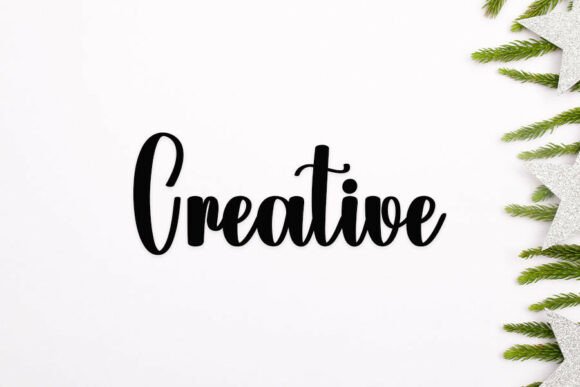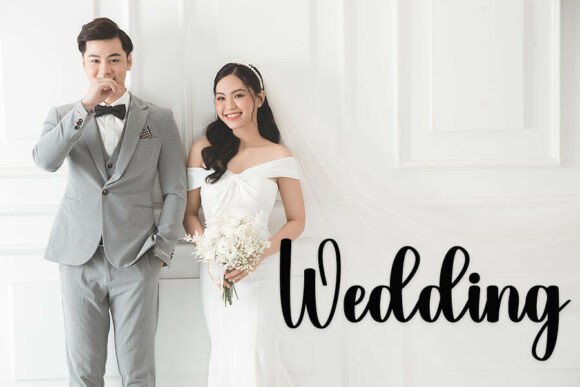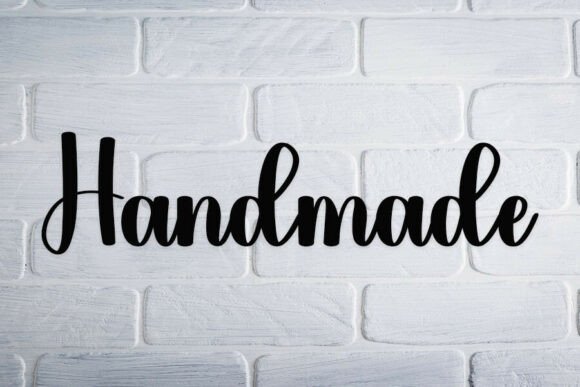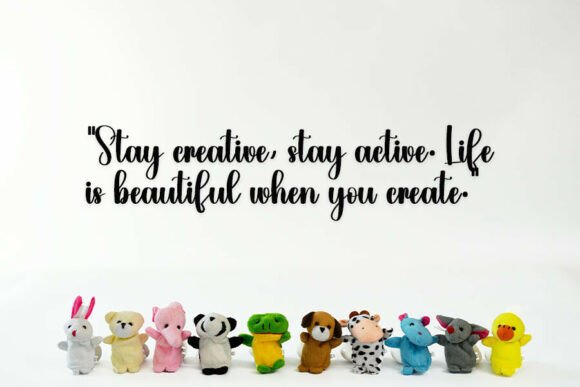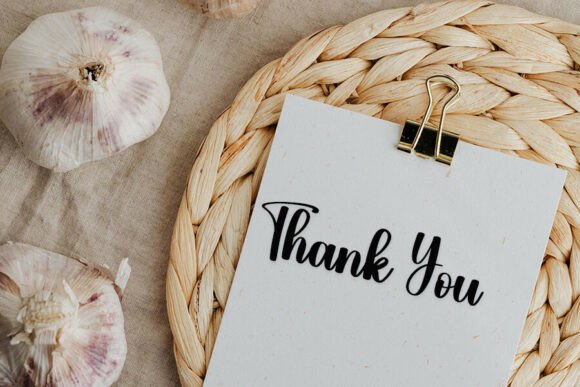
Do you remember the feeling of rummaging through your grandmother’s attic, discovering old scrapbooks and vintage letters adorned with elegant handwriting? It’s a moment that sparks creativity and nostalgia. For designers, this feeling can be recreated with the right tools – and that’s exactly what the Happy Holiday Font aims to do.
This delicate handwritten font is carefully crafted to add a touch of whimsy and uniqueness to any design. Whether you’re writing letters to loved ones, creating invitations for a festive gathering, or labeling food products for a holiday market, the Happy Holiday Font is the perfect choice. Its versatility and charm make it an invaluable asset for designers looking to create memorable and engaging designs.
Key Features of “Happy Holiday Font”
- Unique Characteristics: The font features a playful, cursive script with a festive holiday theme, perfect for creating a warm and inviting atmosphere.
Designer Review: Happy Holiday Font
Overall, I think the Happy Holiday Font has a lot of potential for festive and fun designs, especially during the holiday season. Here are some things that work well:
- ✨ The font is highly legible, even at smaller sizes, making it perfect for posters, invitations, and other promotional materials.
- ✨ The font has a great balance of whimsy and sophistication, making it suitable for a wide range of designs, from playful to elegant.
- ✨ The font comes in a variety of weights and styles, giving designers plenty of options for customizing their designs.
- ⚠️ The font may be too playful or childish for more serious designs, such as business cards or annual reports.
- ⚠️ Some of the characters may not be as well-designed as others, which can make the font look a bit inconsistent.
- ⚠️ The font may not be as versatile as some other fonts, and may not work well in certain design contexts.
Overall, I think the Happy Holiday Font is a solid choice for designers looking to add some festive flair to their designs. While it may have some limitations, its legibility, versatility, and playfulness make it a great option for a wide range of designs.
Tips for Getting the Most Out of the Happy Holiday Font
1. Use the font to create festive and playful designs for holiday-themed projects.
2. Experiment with different font sizes and styles to add visual interest.
3. Pair the Happy Holiday Font with other festive fonts for a cohesive look.
1. Holiday greeting cards and invitations.
2. Social media graphics and ads.
3. Party decorations and signage.
Alternatives to “Happy Holiday Font” for Designers
Pacifico is a beautiful, elegant script font that is perfect for creating a warm and inviting atmosphere. It is ideal for use in holiday greeting cards, gift tags, and other festive designs. Unlike Happy Holiday Font, Pacifico has a more refined and sophisticated feel, making it suitable for a wider range of design applications.
Great Vibes is a fun and playful script font that is perfect for creating a lively and energetic atmosphere. It is ideal for use in holiday party invitations, social media graphics, and other designs that require a sense of excitement and celebration. While Happy Holiday Font is more traditional, Great Vibes offers a more modern and trendy feel.